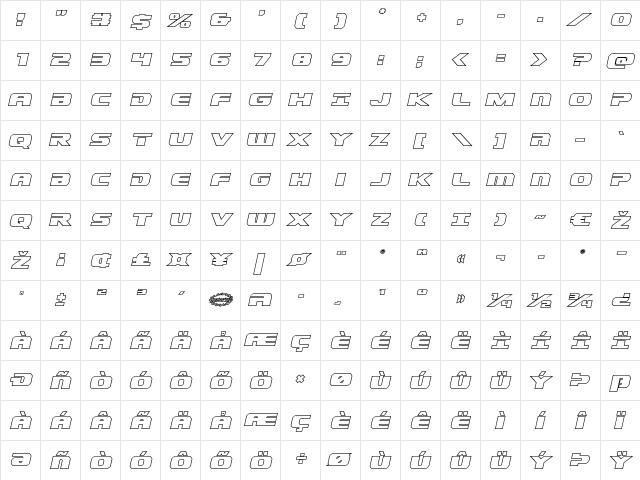
Dekaranger Outline Italic Italic
Design Context for Dekaranger Outline Italic Typeface
Dekaranger Outline Italic is built around its visual character rather than neutral utility — its distinctive forms are designed to make an impression at display sizes. Its italic angle brings a sense of urgency and motion to the letterforms.
Font Pairing: Pair with a clean neutral sans-serif for body copy to let Dekaranger Outline Italic's character lead without overwhelming the composition.
Pro Tip: Treat Dekaranger Outline Italic as the centrepiece of your typographic hierarchy. One strong heading set in a decorative face can carry an entire layout.